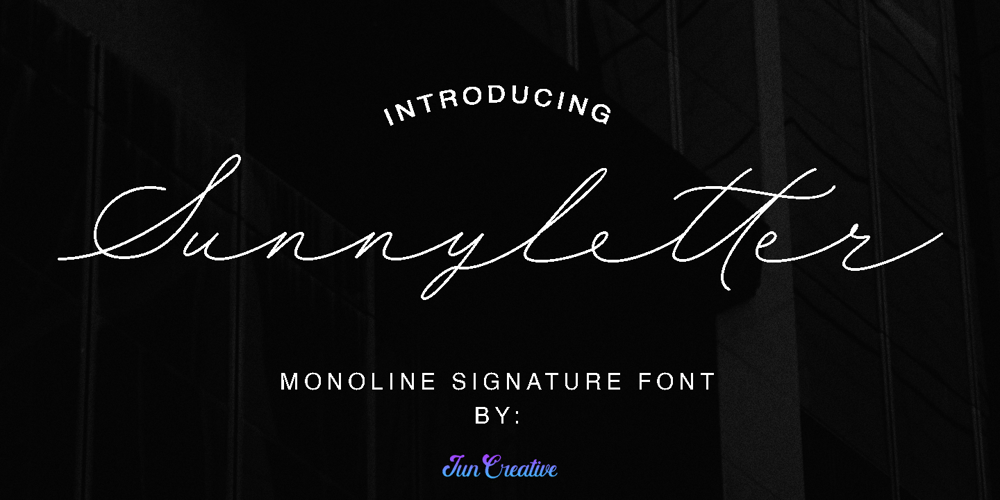
Sunnyletter Font Family was designed by Muhamad Junaid and published by Juncreative. Sunnyletter contains 1 styles and family package options. Sunnyletter is a elegant script font. This font is neatly crafted and highly detailed. Whatever the topic, this font will be a wonderful asset to your font library, as it has the potential to enhance any creation.This font is PUA encoded which means you can access all glyphs and swashes with ease!